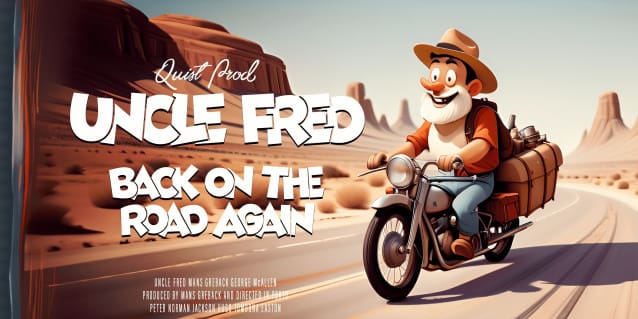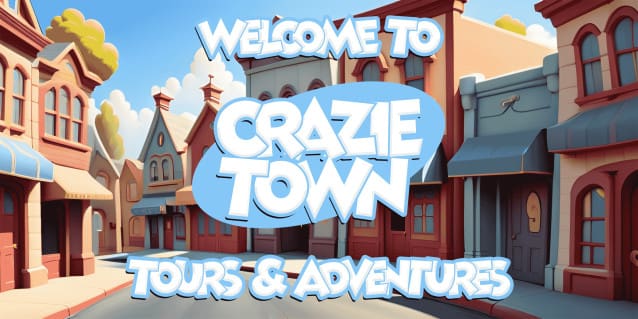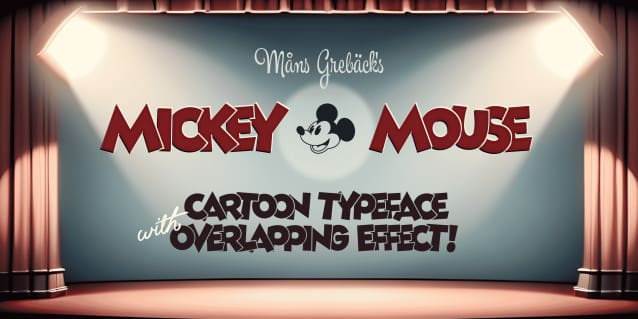
Mickey Mouse Font
Mickey Mouse Font is a delightful blend of humor and optimism, designed to capture the essence of classic cartoons.
Make sure to activate contextual alternates in your design software to make the letters overlap!